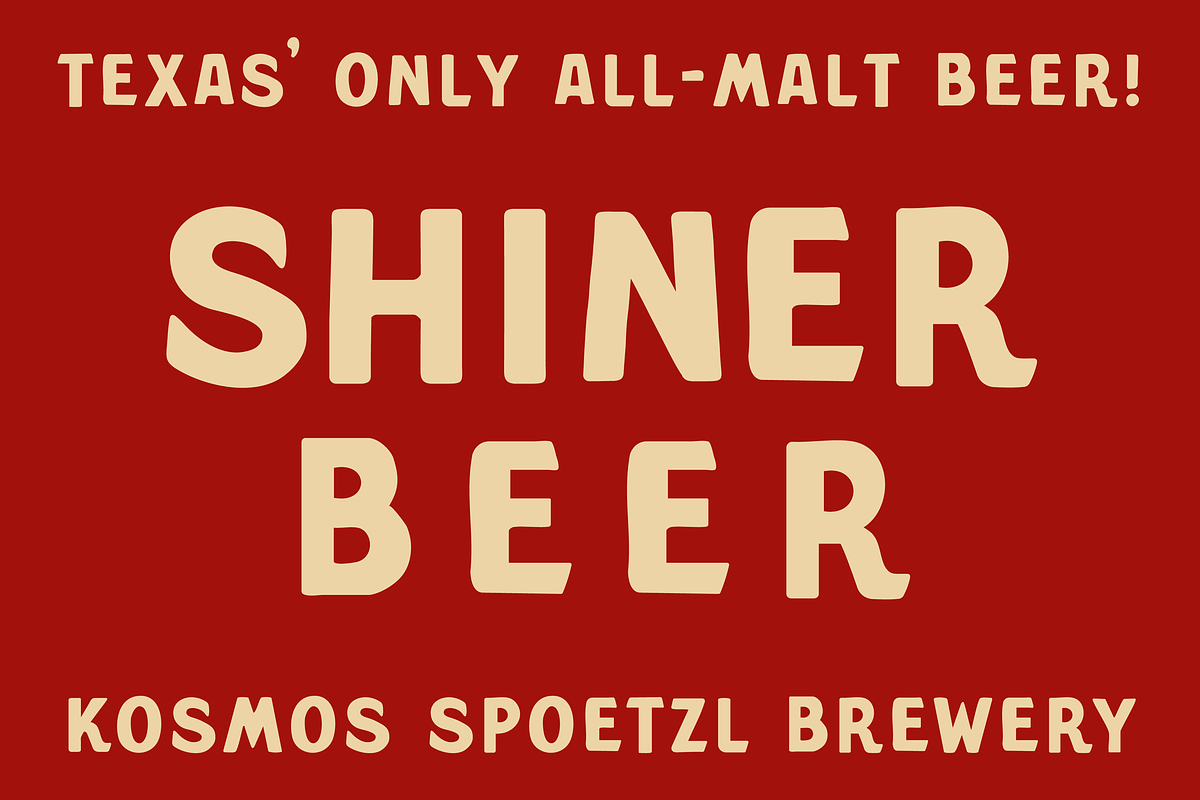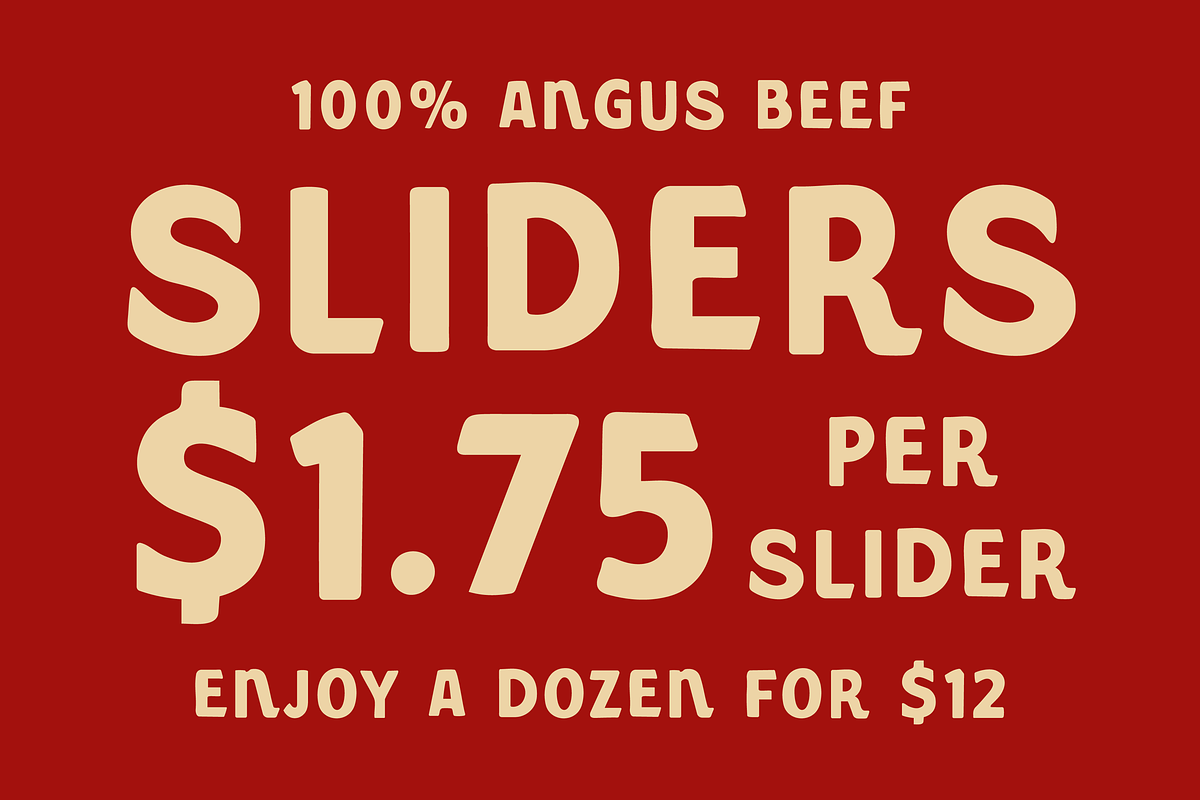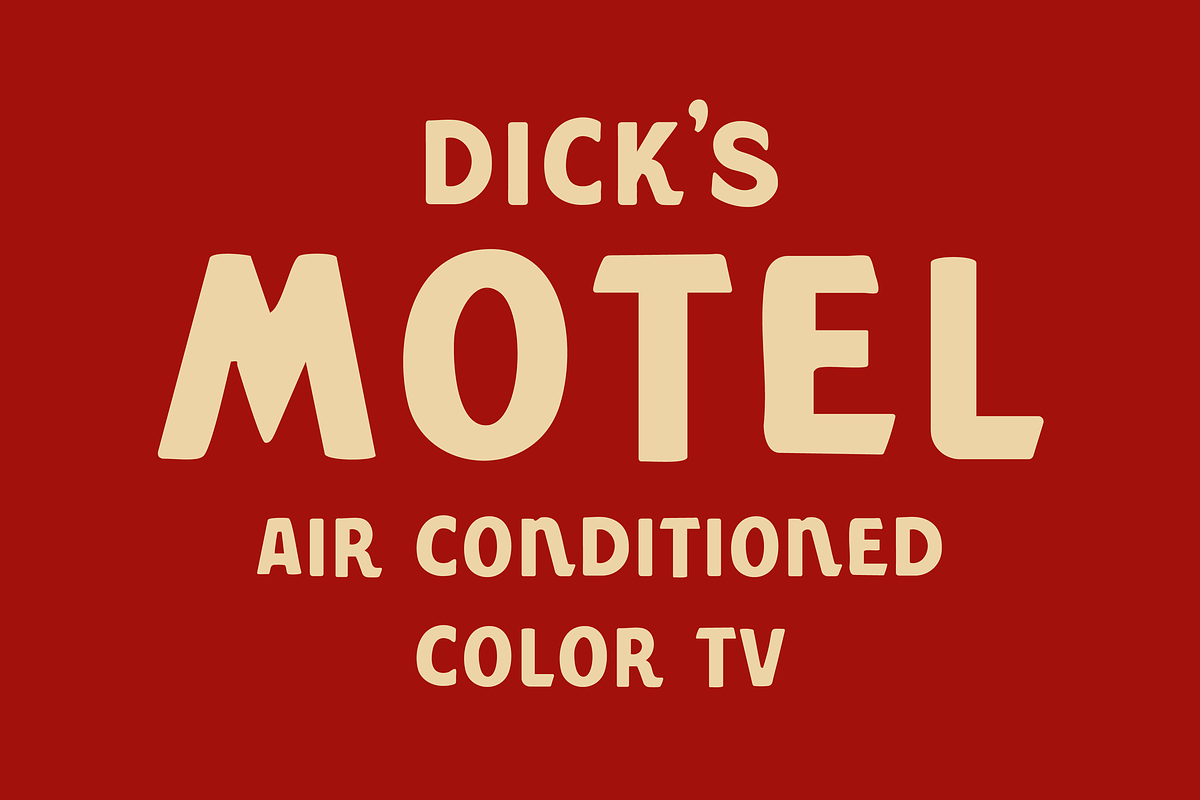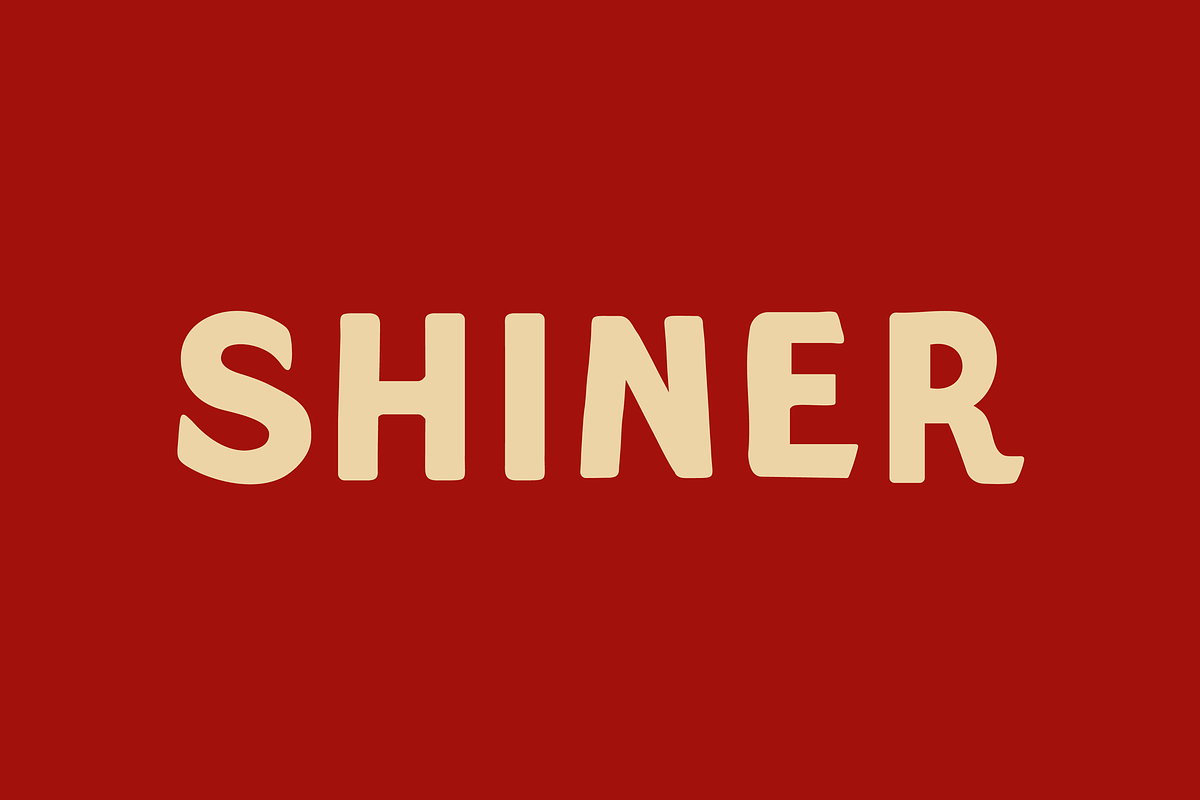
SHINER
Shiner is a hand drawn typeface inspired by old tin tackers and vintage road signage. It's perfect for any project that needs a hand drawn font to accompany an hand drawn illustrations.